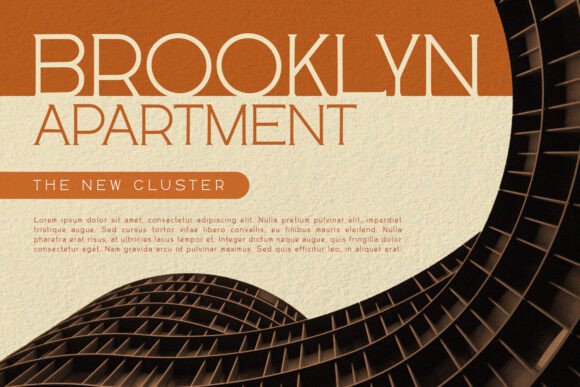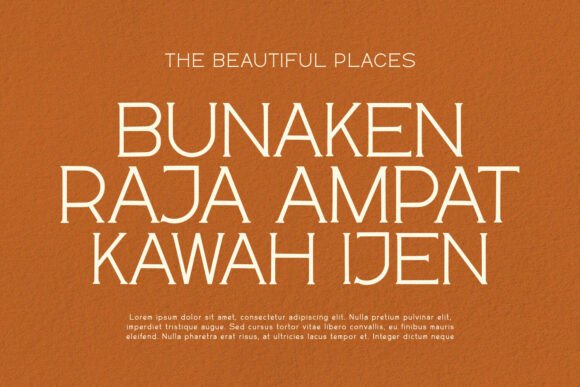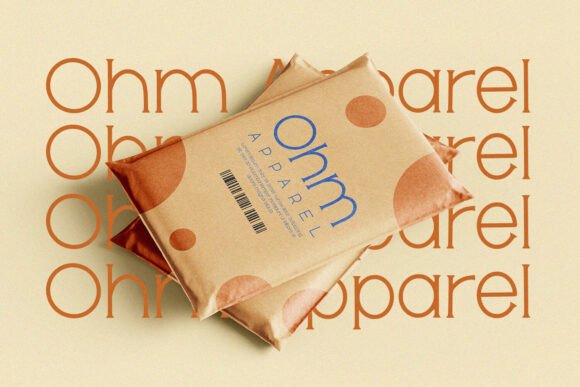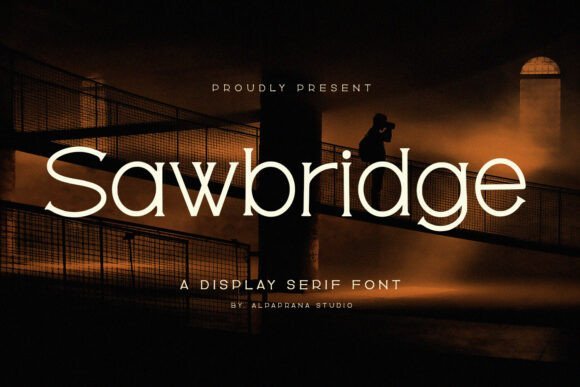
Introduction to Sawbridge Font
Sawbridge is a display serif font with elegant and modern feels.
It will be perfectly used for Branding, Logo Design, Lettering, Logotype, Clothing, Posters, magazines, packaging, posters, shopping bags, t-shirts, book covers, photography, special events, and other design projects .
Sawbridge Font offers exceptional quality and versatility, making it a valuable addition to your design toolkit. Whether you’re creating for personal projects or commercial use, Sawbridge Font delivers professional results.